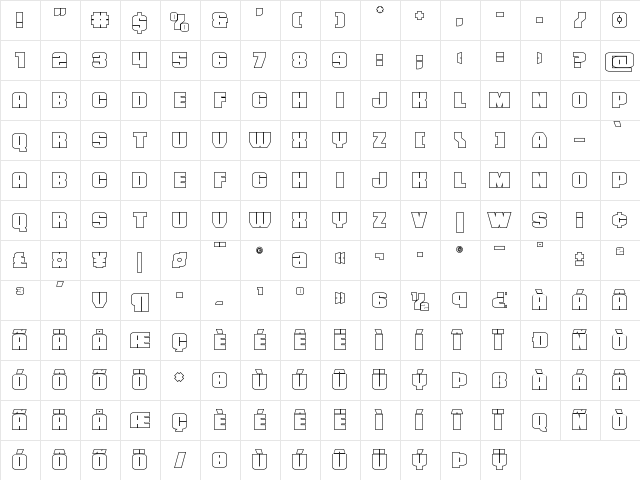
Elephant Gun Outline Regular
Design Context for Elephant Gun Outline Typeface
Elephant Gun Outline brings ornamental detail and strong personality to headlines and identities, where visual impact matters more than quiet functionality.
Font Pairing: Pair with a clean neutral sans-serif for body copy to let Elephant Gun Outline's character lead without overwhelming the composition.
Pro Tip: Treat Elephant Gun Outline as the centrepiece of your typographic hierarchy. One strong heading set in a decorative face can carry an entire layout.